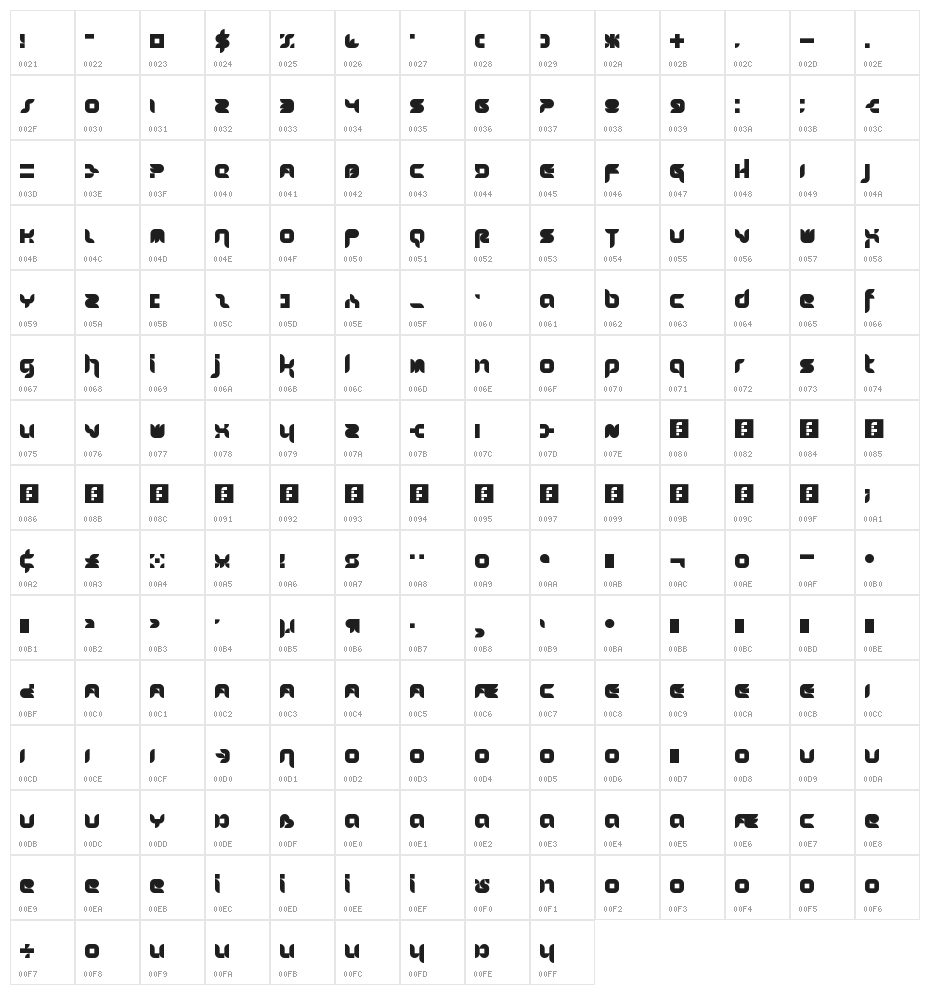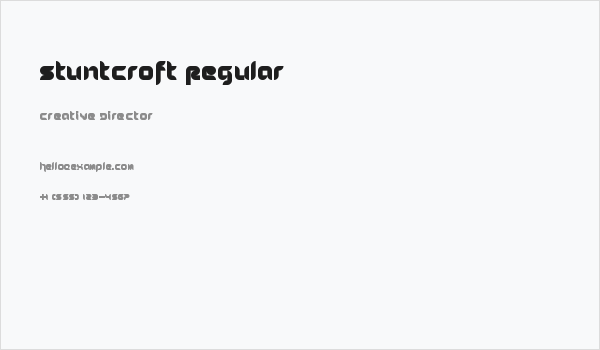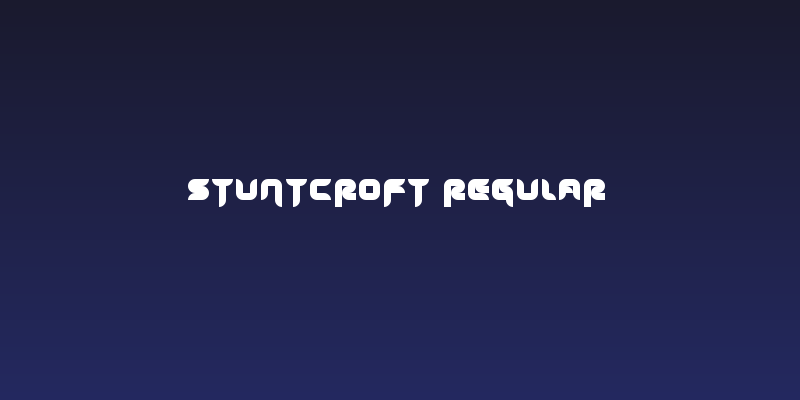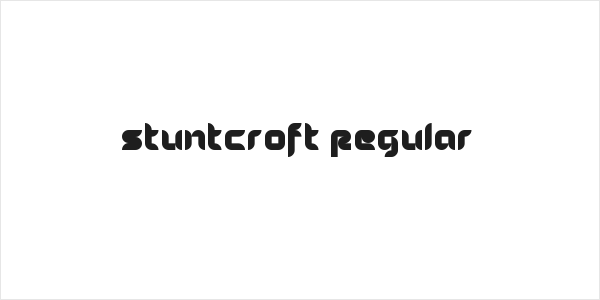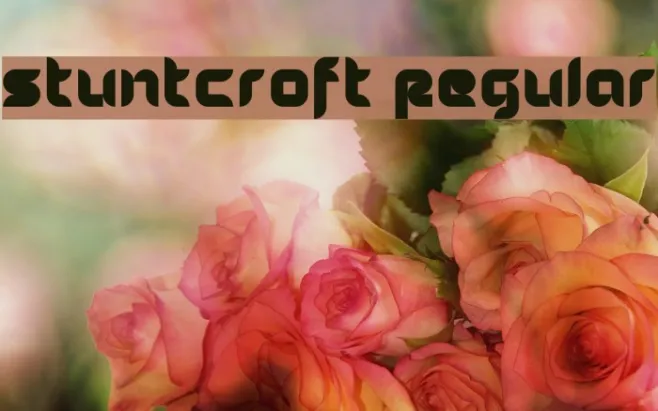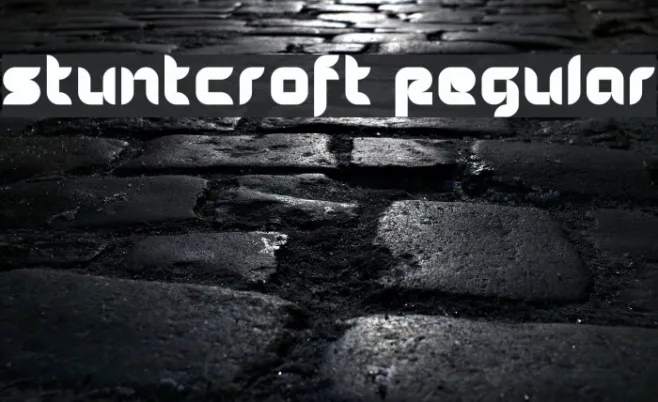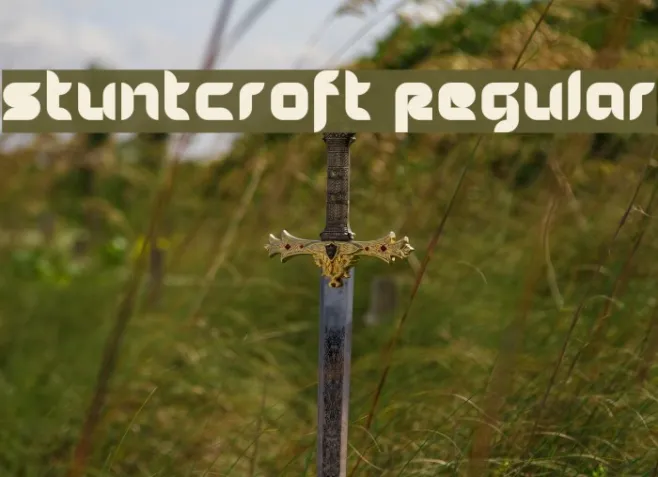
Stuntcroft Regular Font
Stuntcroft Regular Description
This font features a bold and futuristic design with geometric shapes and sharp angles. The characters are constructed with a unique blend of curves and straight lines, creating a dynamic and eye-catching appearance. The uppercase and lowercase letters maintain a consistent style, with a strong emphasis on symmetry and balance. The numbers and special characters follow the same design principles, ensuring a cohesive look across all elements. The font's boldness and distinct style make it ideal for projects that require a modern and impactful visual presence.
| Proposed Projects | Ideal for sci-fi themed designs, technology branding, video game titles, and modern posters. |